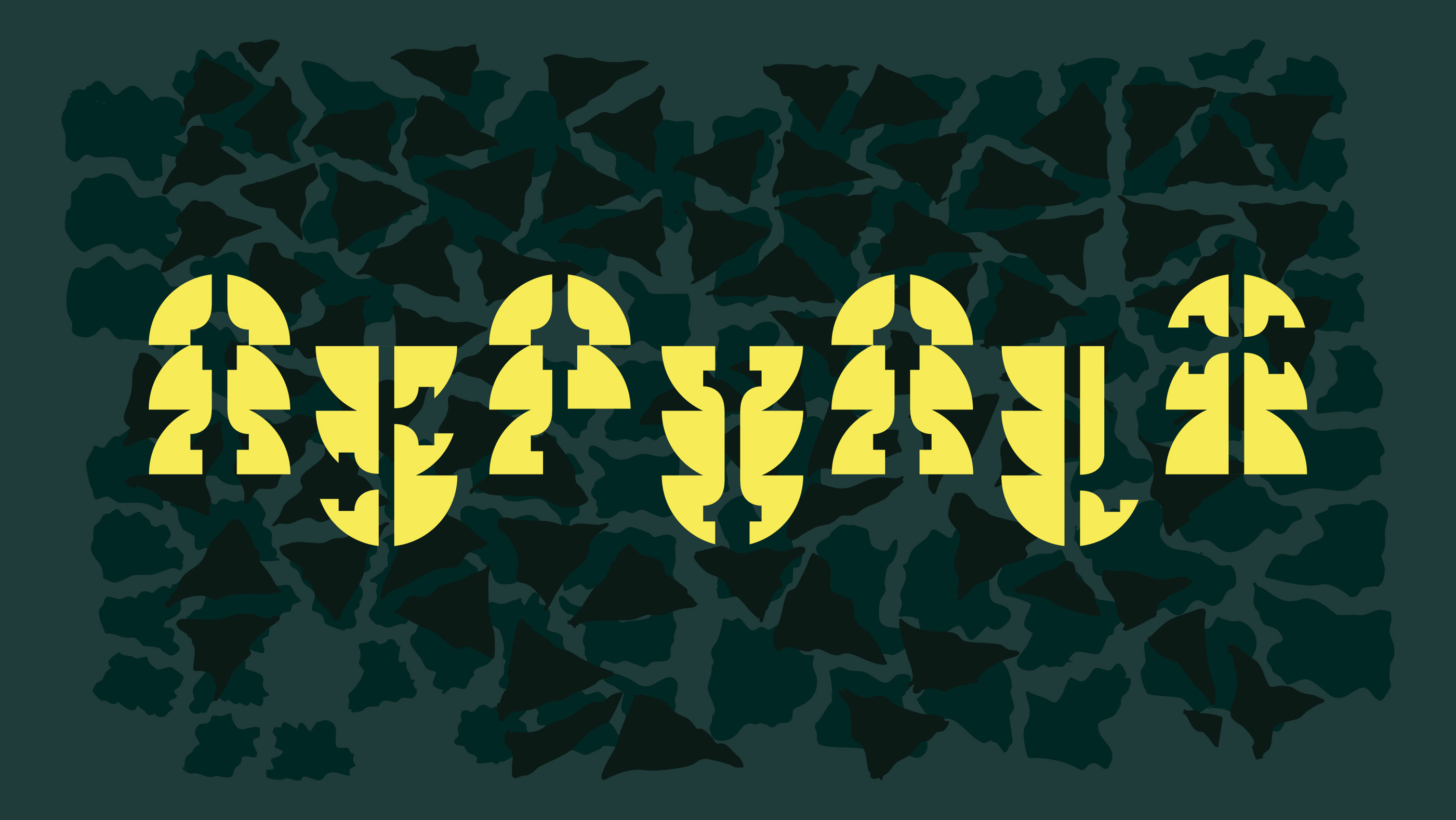
Asphalt
I merged two unique shapes into a new form and vertically flipped the odd and even letters to create a flowing wave-like rhythm. The hand-drawn background shapes add an organic touch to the composition. All organic shapes were hand-drawn with ink.